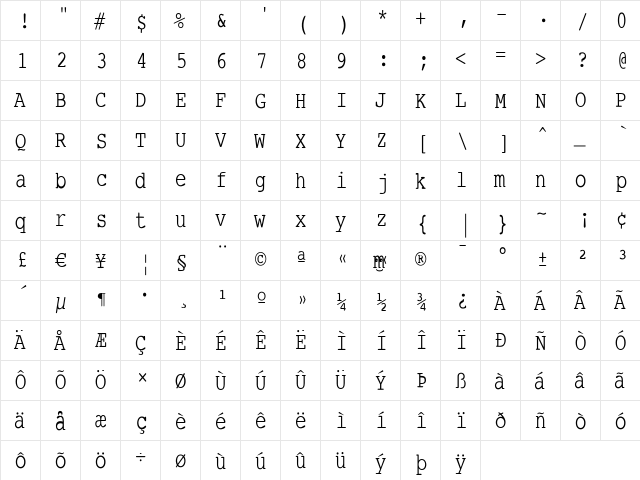
SmallTypeWriting Regular
Design Context for SmallTypeWriting Typeface
SmallTypeWriting is a composed and adaptable typeface that performs quietly and consistently across a wide range of design contexts.